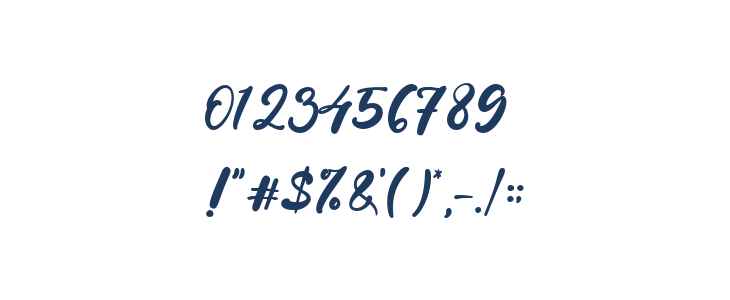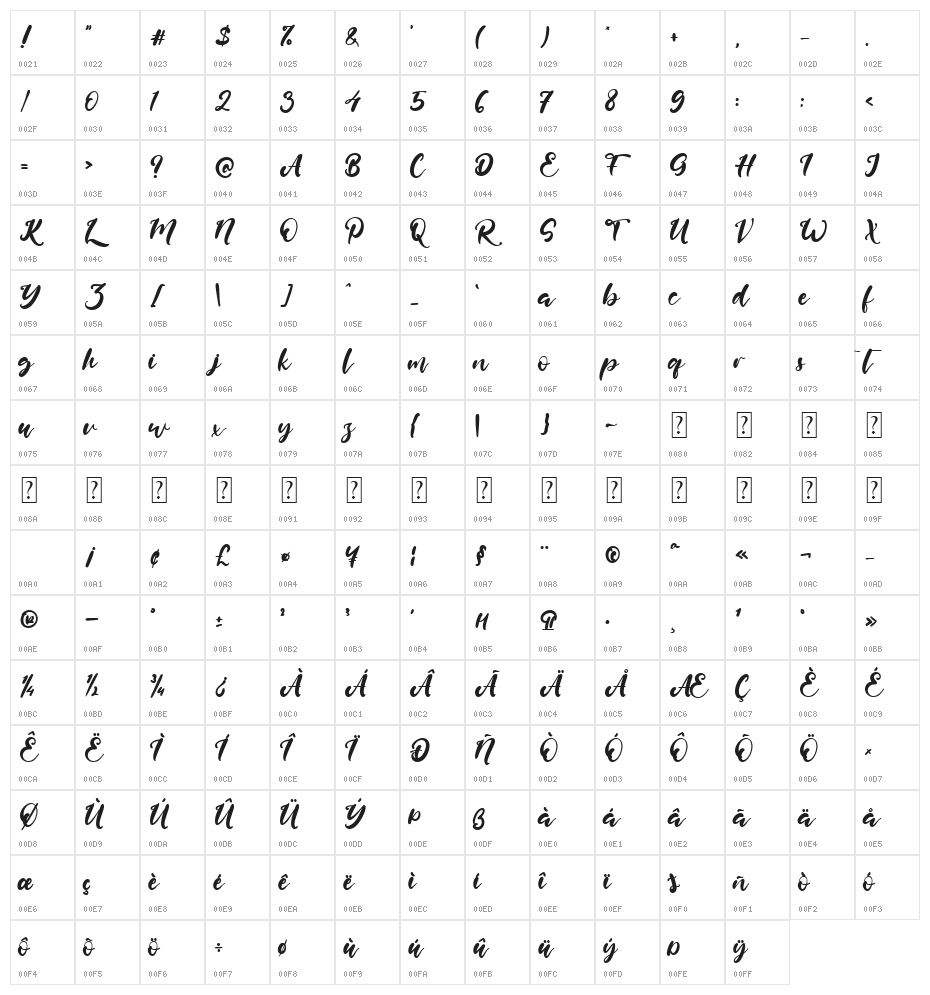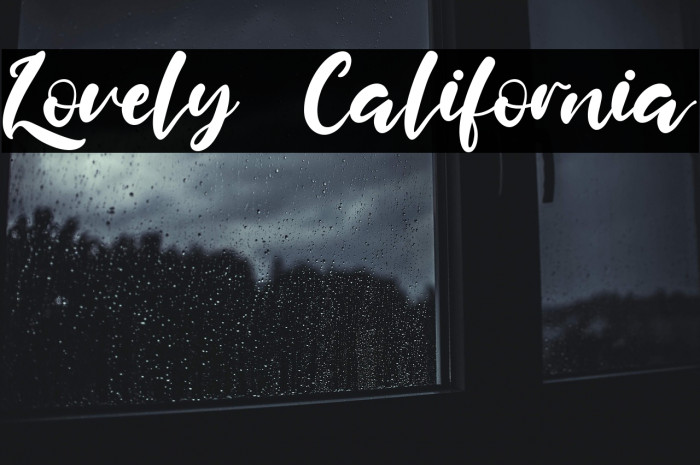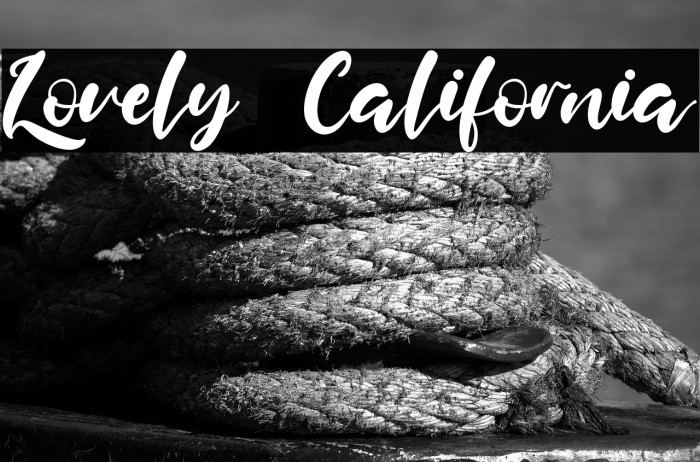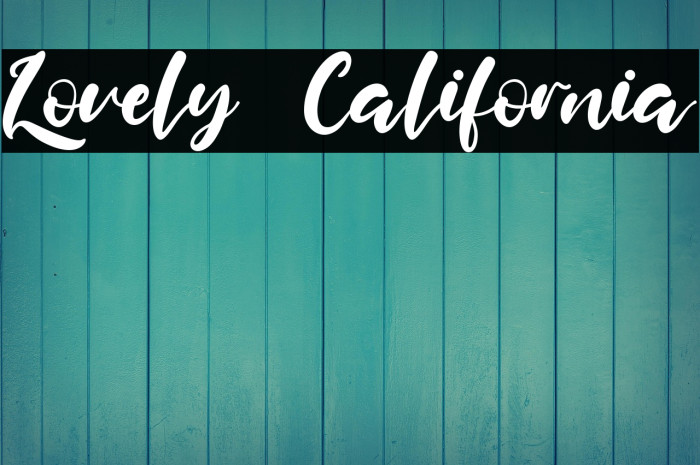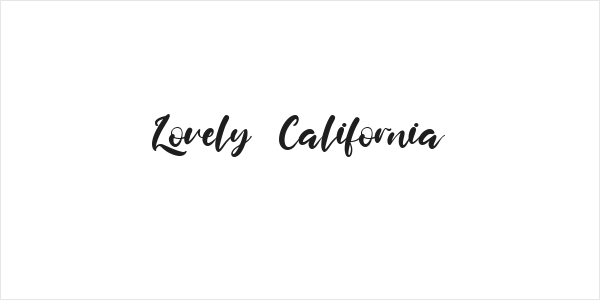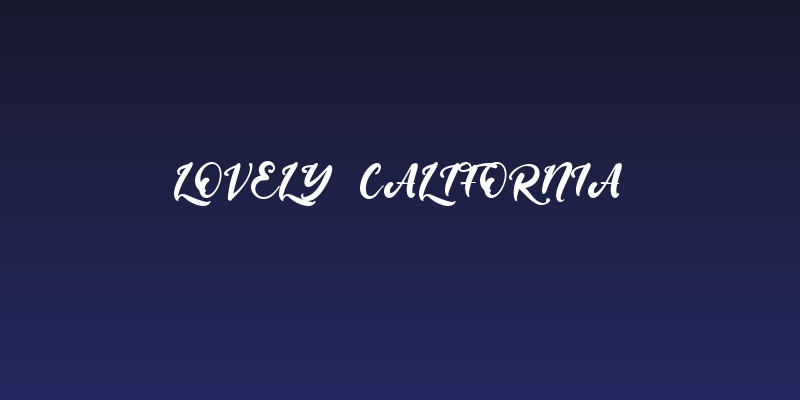
Lovely California Font
Lovely California Description
This font exudes a lively and expressive character with its bold, flowing script style. The letters are elegantly connected, creating a sense of movement and fluidity. The uppercase letters feature dramatic flourishes, while the lowercase letters maintain a consistent rhythm, enhancing readability. The numerals and special characters are designed to complement the overall aesthetic, making the font versatile for various applications. Its bold strokes and high contrast give it a striking appearance, perfect for making a statement.